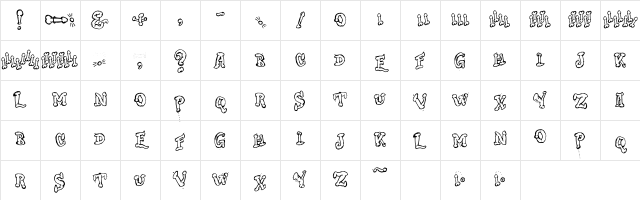
Complete DongCasual Roman glyph index. Displaying only characters natively supported by DongCasual Roman font.
DongCasual is a composed and adaptable typeface that performs quietly and consistently across a wide range of design contexts.